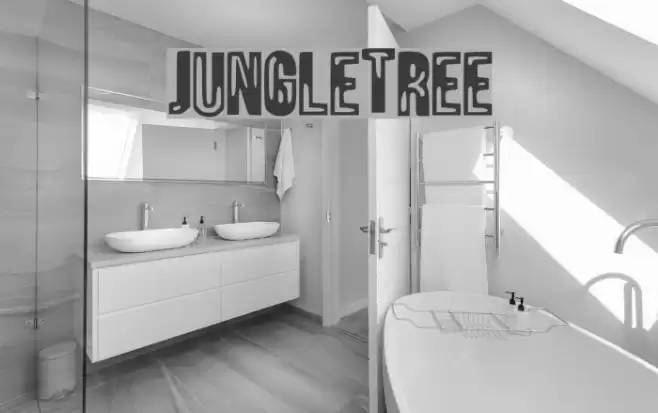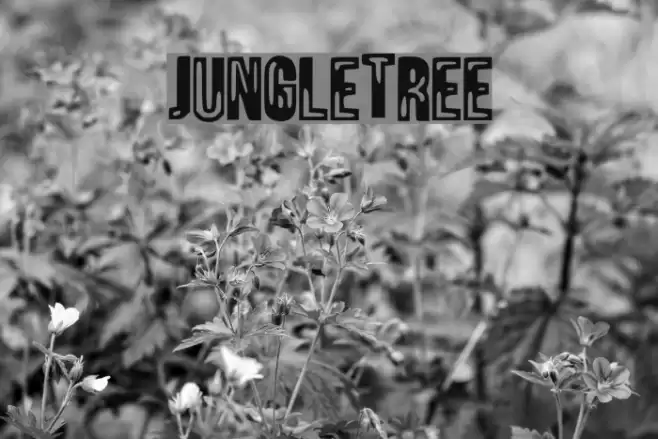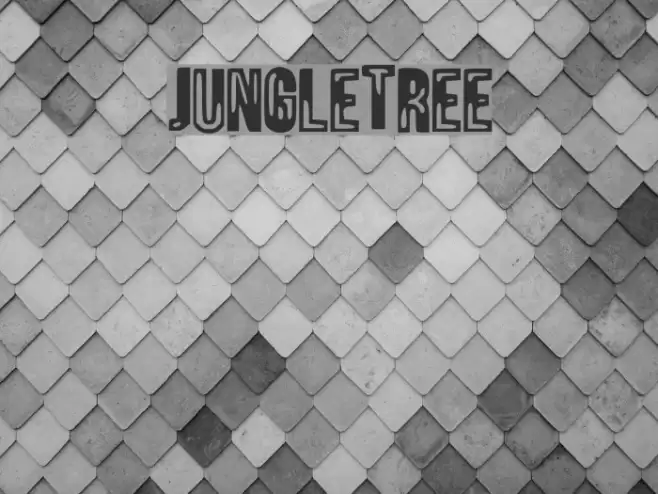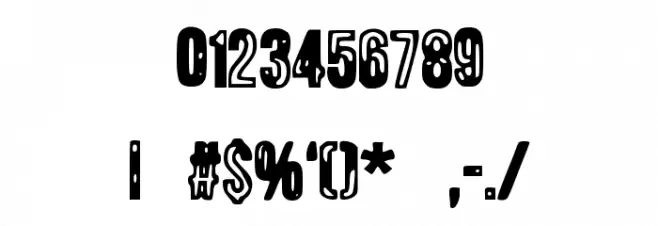
JungleTree Font
JungleTree Description
This font features a bold and playful design with a jungle-inspired theme. The characters are filled with irregular shapes and cutouts, giving them a lively and adventurous appearance. The uppercase and lowercase letters maintain a consistent style, with thick strokes and high contrast between the filled and empty spaces. The numbers and special characters follow the same design principles, ensuring a cohesive look across all elements. This font is ideal for projects that require a fun and dynamic visual impact.
A bold, jungle-themed font with playful cutouts and high contrast from Uncategorized fonts.
- Proposed Projects: Perfect for children's books, adventure-themed posters, playful branding, and event invitations.